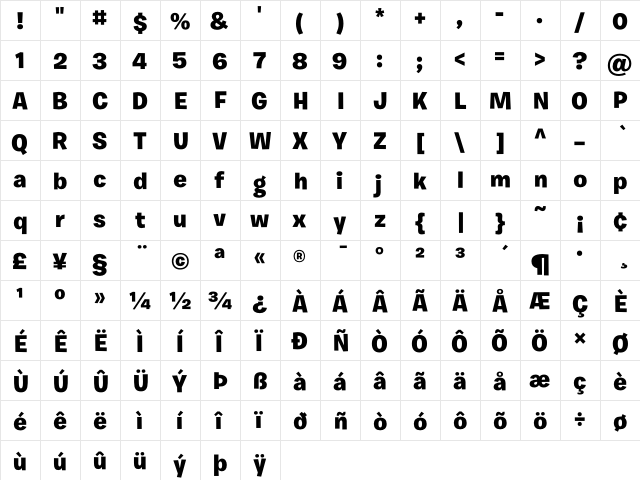
Burbank Small Black
| Foundry | House Industries |
| Designer | Tal Leming |
Design Context for Burbank Small Typeface
Burbank Small offers clean, dependable letterforms without strong stylistic allegiance, making it a practical choice for designers who need flexibility.